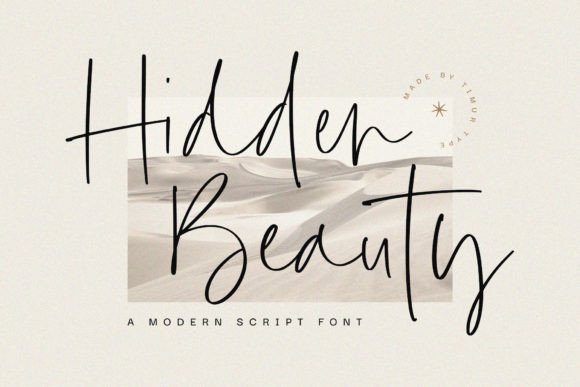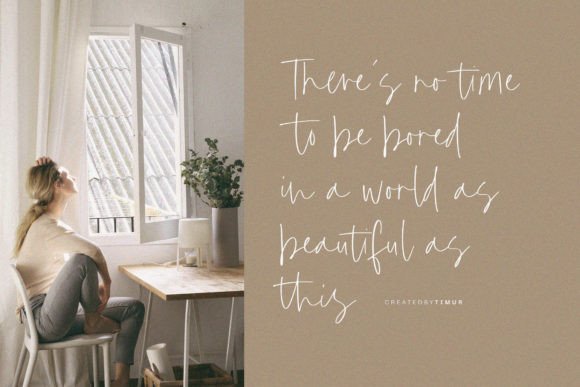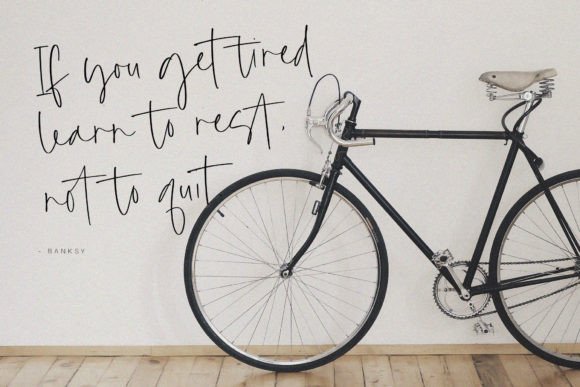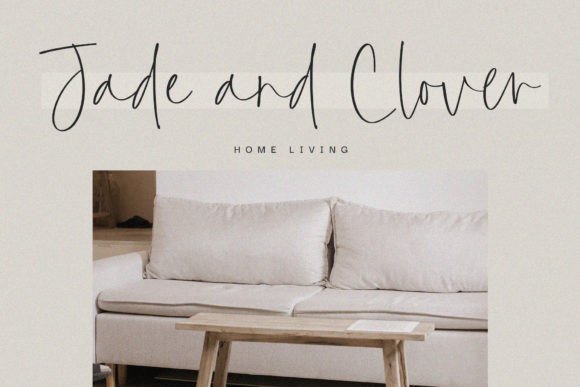
Hidden Beauty Font
About the Hidden Beauty Font
Presenting Hidden Beauty Font, a unique and stylish typeface that will make your work stand out. Hidden Beauty is a clean and thin handwritten font. Hidden Beauty is perfect for product packaging, branding project, magazines, social media, weddings, or just used to express words above the background.
Its delicate thin strokes make it ideal for projects requiring a touch of elegance and sophistication, such as wedding invitations, stationery, or branding for luxury goods. It excels in short text applications like headlines, quotes, and logos, where its refined character shines. However, its thin weight makes it less suitable for body text or UI elements where readability is paramount.
Hidden Beauty’s clean lines pair well with both modern sans-serif fonts like Montserrat for a contemporary feel, or with warmer, more traditional serif fonts such as Playfair Display for a classic yet stylish contrast. A script font like Great Vibes could add a touch of whimsy for certain applications.
The overall personality is refined and understated, conveying a sense of quiet elegance and subtle charm. It’s best suited for brands that wish to project a feeling of luxury, handcrafted quality, or timeless appeal.
Hidden Beauty Font Usage Examples
Hidden Beauty Font Example